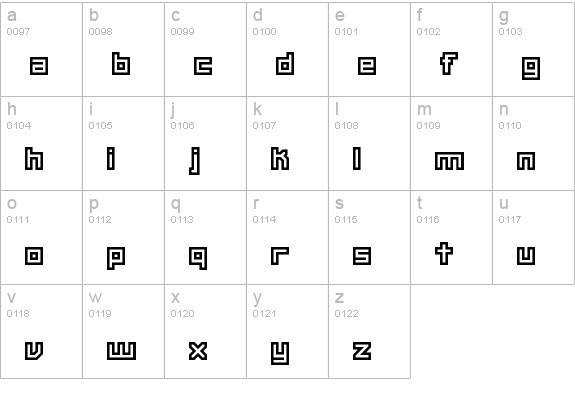
Unlearned 2 BRK Font Details
Unlearned 2 BRK font is a visually captivating and versatile typeface that exudes a unique sense of modernity and creativity. With its bold and distinctive letterforms, this font effortlessly commands attention and stands out in any design project. Unlearned 2 BRK font is the perfect choice for those seeking a font that breaks free from traditional conventions and embraces a more experimental and unconventional style. Its edgy and abstract design elements make it a great option for projects that require a touch of originality and nonconformity. This font is freely available to download at FontsMarket.com, making it accessible to designers and creatives of all backgrounds and budgets. Whether you're a professional designer or an enthusiastic hobbyist, Unlearned 2 BRK font offers you the opportunity to add an element of uniqueness and individuality to your work. With its wide range of characters and symbols, Unlearned 2 BRK font allows for endless creative possibilities. From eye-catching headlines to attention-grabbing logos, this font can be used in a variety of design applications, both digital and print. Unlearned 2 BRK font's clean lines and balanced proportions ensure readability, making it suitable for a wide range of projects, including branding, advertising, packaging, and more. Its versatility and adaptability make it a valuable asset in any designer's toolkit. Discover the freedom of expression that Unlearned 2 BRK font brings to your designs. Download it for free at FontsMarket.com and unleash your creativity today.